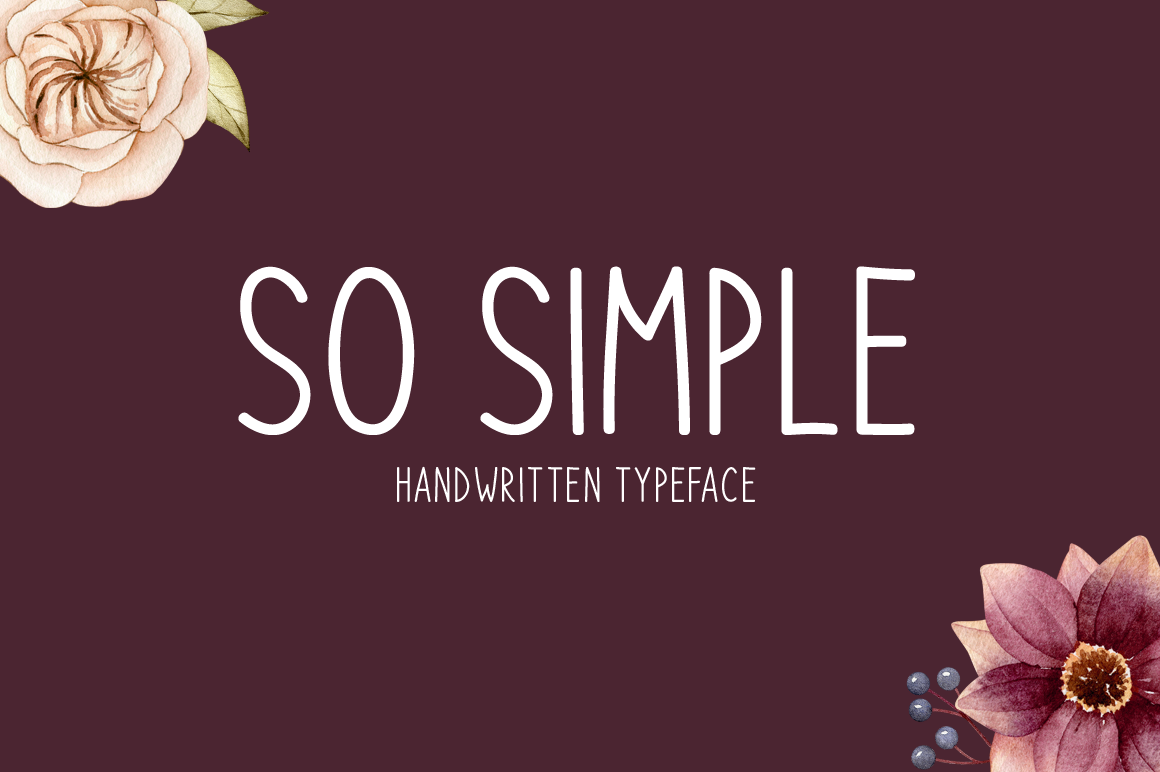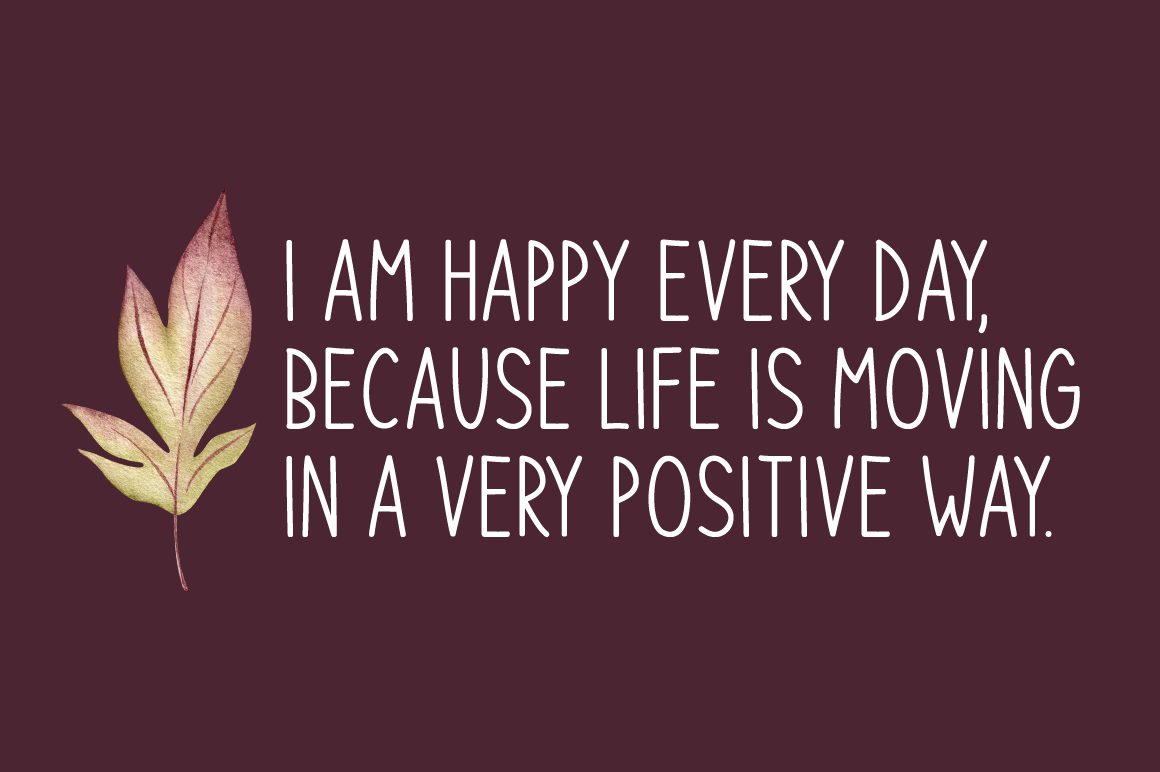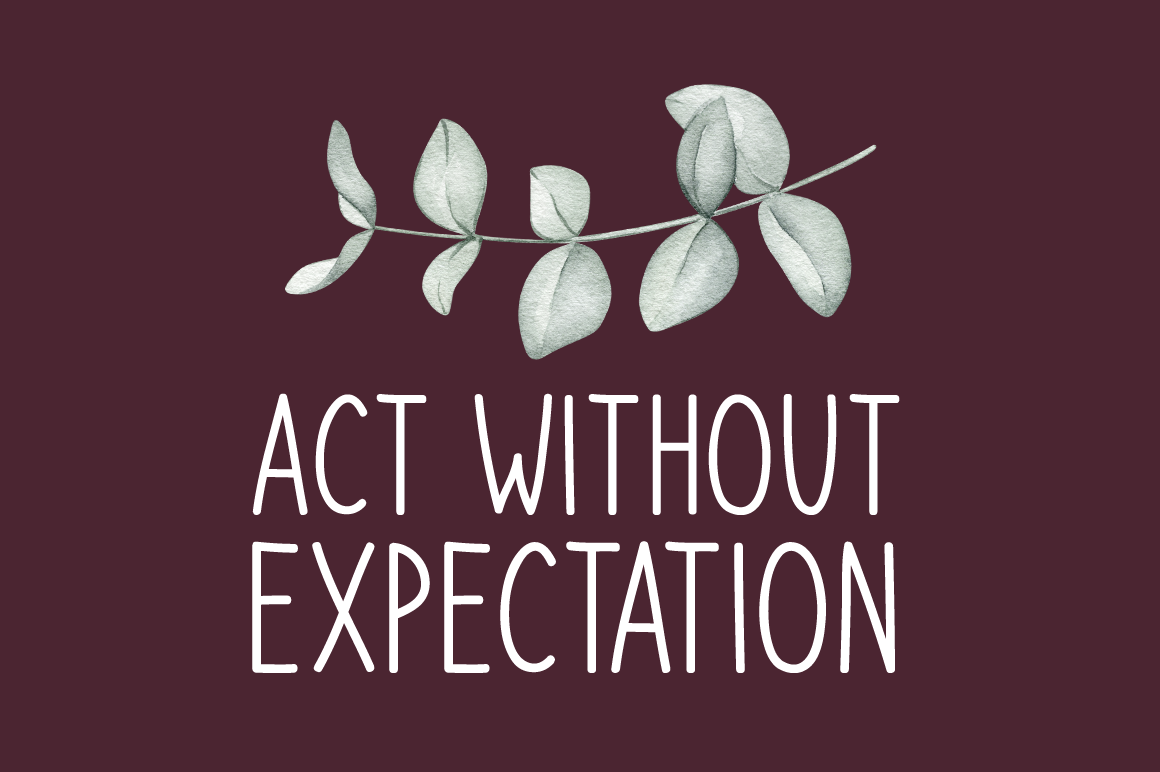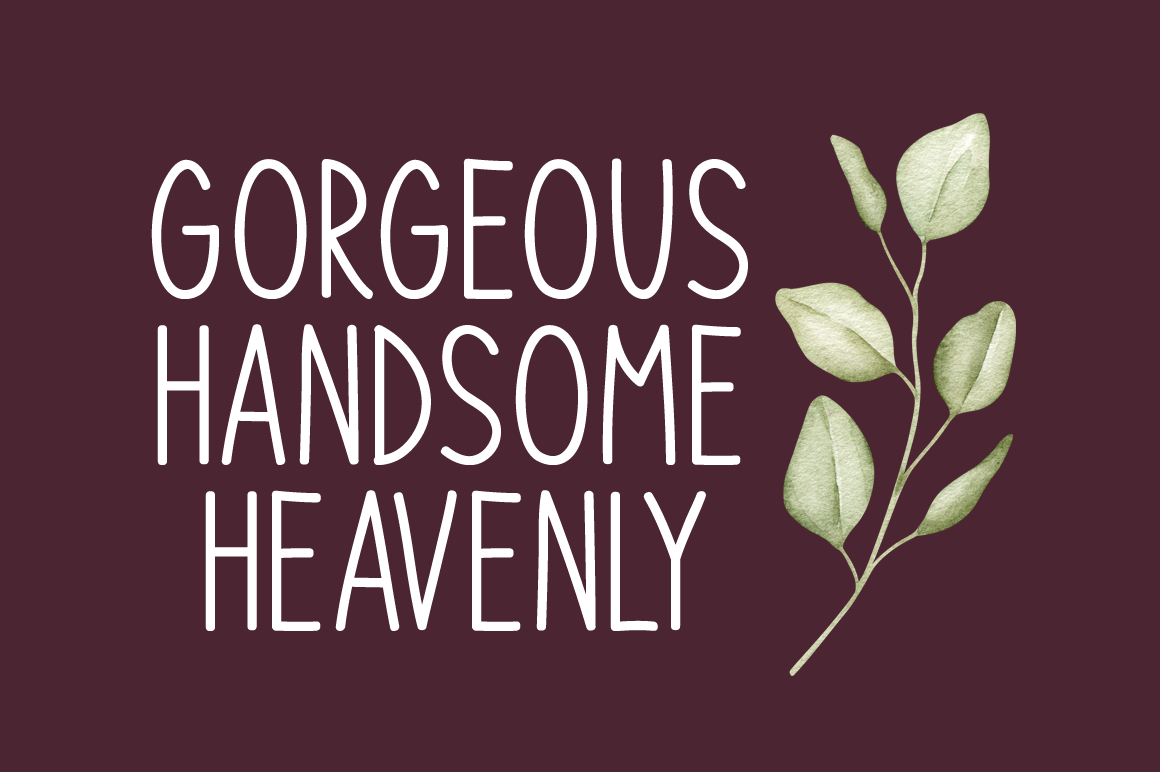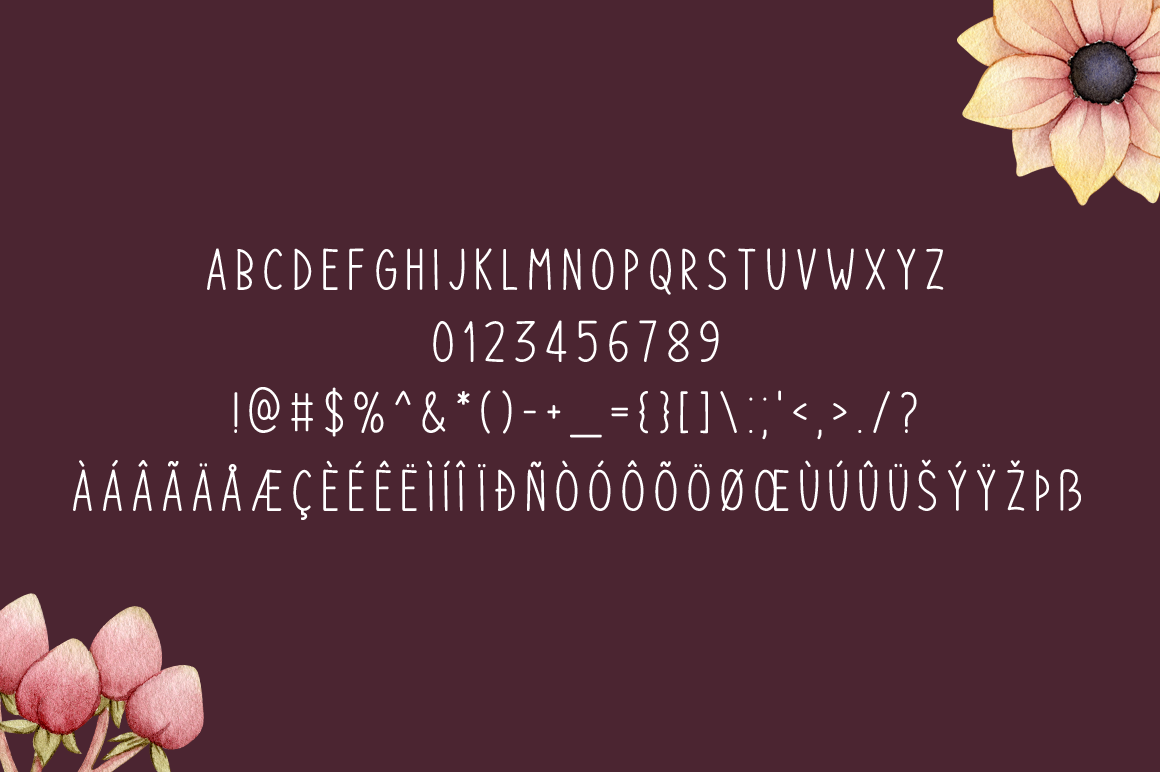
Introducing So Simple! So Simple is a brand new handwritten font. So Simple is perfectly suited for stationery, logos, t-shirt, paper, print design, website header, photo frame, flyer, music cover, poster, image slider, and much more. What's Included: - So Simple. otf - So Simple. ttf Includes a range of multilingual support | So Simple Typeface | Seemly Fonts